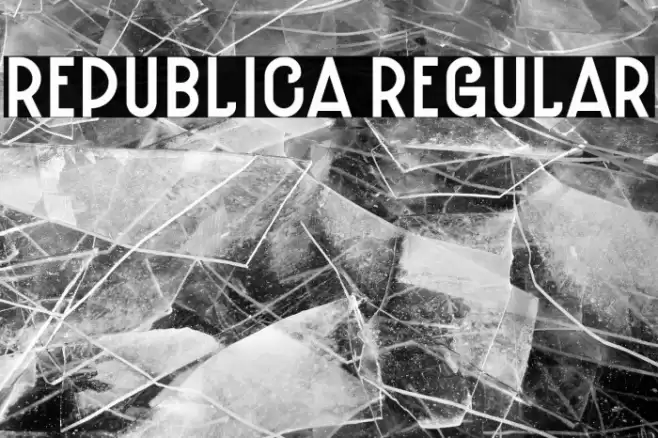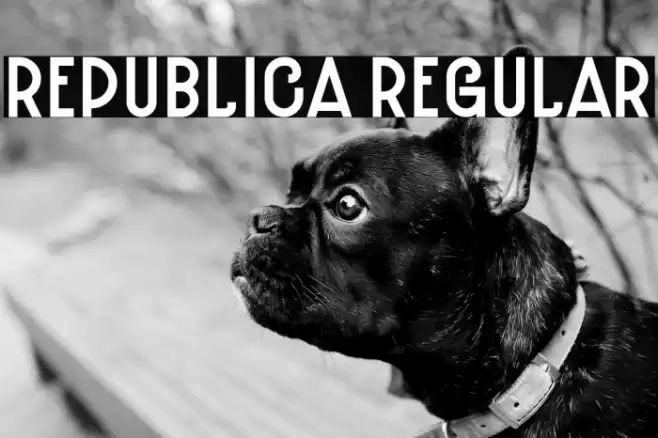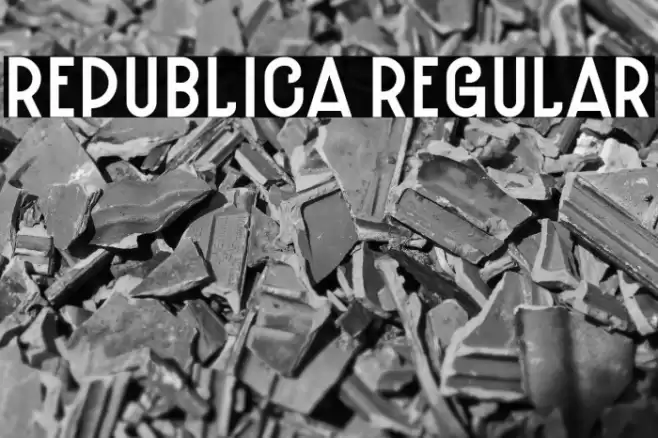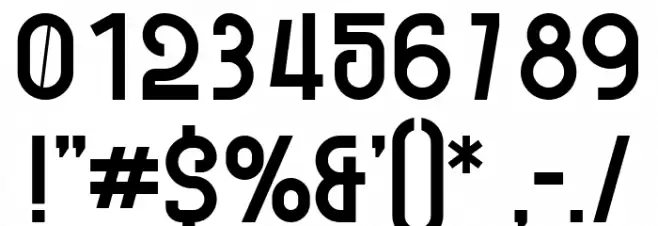
Republica Regular Font
Republica Regular Description
This font features a bold and modern sans-serif style with clean, geometric lines and a strong presence. The uppercase and lowercase letters are well-balanced, with consistent stroke widths that give it a uniform appearance. The numerals are clear and legible, making them suitable for various applications. Special characters are included, maintaining the font's cohesive design. Its simplicity and clarity make it versatile for both digital and print media.
A bold, modern sans-serif font with clean, geometric lines from Uncategorized fonts.
- Font: Republica Regular
- Proposed Projects: Ideal for branding, advertising, headlines, and digital content where a strong, modern look is desired.
- Use Case: Headlines, Logos, Branding